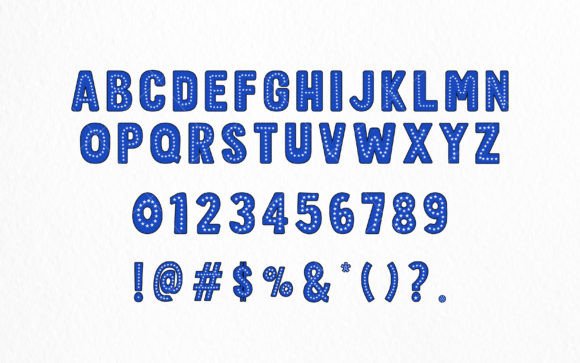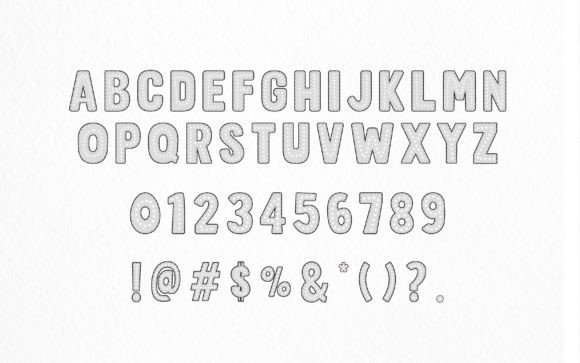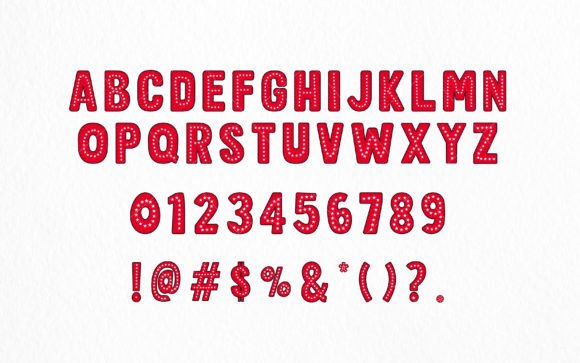
Introducing the Army Star Line Font: A Quintessential American Typeface
Immerse yourself in the power of nostalgia and patriotism with our quintessentially American font, the Army Star Line Font. Drawing inspiration straight from the stars and stripes, this typeface beautifully encapsulates the strong heritage and pride of America. This is not just any font, it’s a testament to the enduring spirit of the nation.
A Font that Embodies Nationalistic Pride and Heritage
Elaborately designed, the Army Star Line Font adds an unmissable touch of American fervor to any design project. Perfectly capturing the essence of nationalistic pride and heritage, this font is sure to illuminate your work with a patriotic spark. Whether you’re a designer, crafter, or simply someone who loves American history, this font is a must-have in your collection.
Design Inspiration and Ideas
The Army Star Line Font is perfect for a wide range of design projects, from patriotic crafts and DIYs to professional design projects. Here are some ideas to get you started:
- Create stunning patriotic signs and banners for Independence Day, Memorial Day, or Veterans Day.
- Design custom vinyl decals and stickers for laptops, water bottles, or cars.
- Make personalized gifts, such as monogrammed towels or customized cutting boards.
- Develop eye-catching branding materials, including logos, business cards, and brochures.
Tips for Using the Army Star Line Font
To get the most out of the Army Star Line Font, here are some tips to keep in mind:
- Experiment with different font sizes and styles to add visual interest to your design.
- Pair the Army Star Line Font with other fonts to create a unique and eye-catching combination.
- Use the font’s bold lines and star-spangled design to add a touch of patriotism to your project.
The Army Star Line Font is a powerful and versatile typeface that embodies the spirit of America. With its bold design and patriotic flair, this font is perfect for designers, crafters, and anyone who loves American history. Whether you’re creating a DIY project or a professional design, this font is sure to add a touch of nostalgia and patriotism to your work.